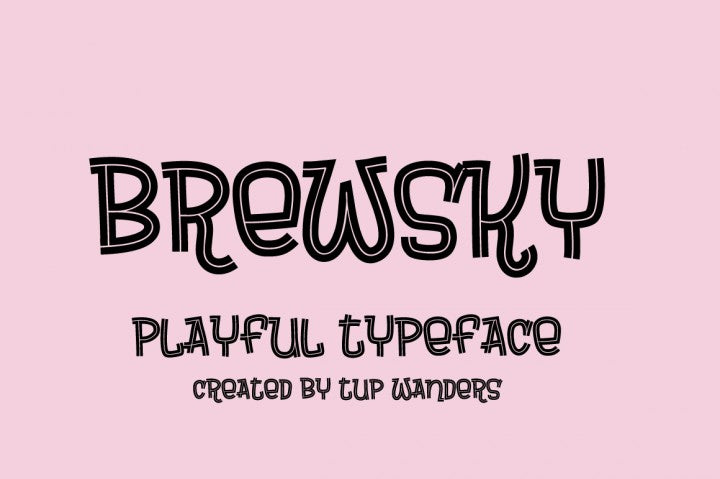
Free Font Brewsky - A Playful Typeface
Free font brewsky - a playful typeface for graphic designers that need to present their work in a professional way. Go give some love to The Hungry JPEG for creating this top-notch font. This is absolutely cool font so you can easily make world-class designs.